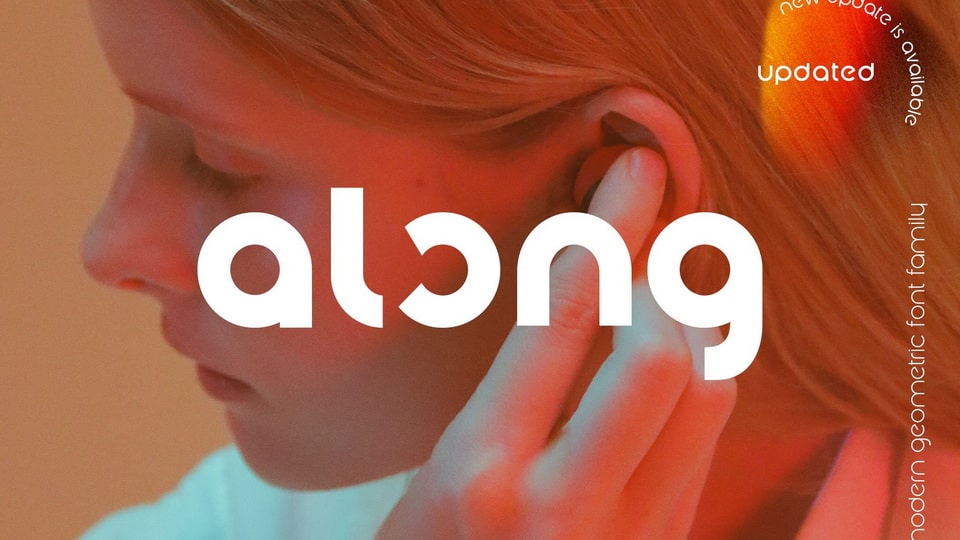
Download Along font, a sans serif typeface designed to showcase beautiful curves and simplicity while remaining true to its geometric style. With Along Sans you will be able to complete cute and elegant typography for logos, titles, and editorial designs.
Designer: Ryul Davidson